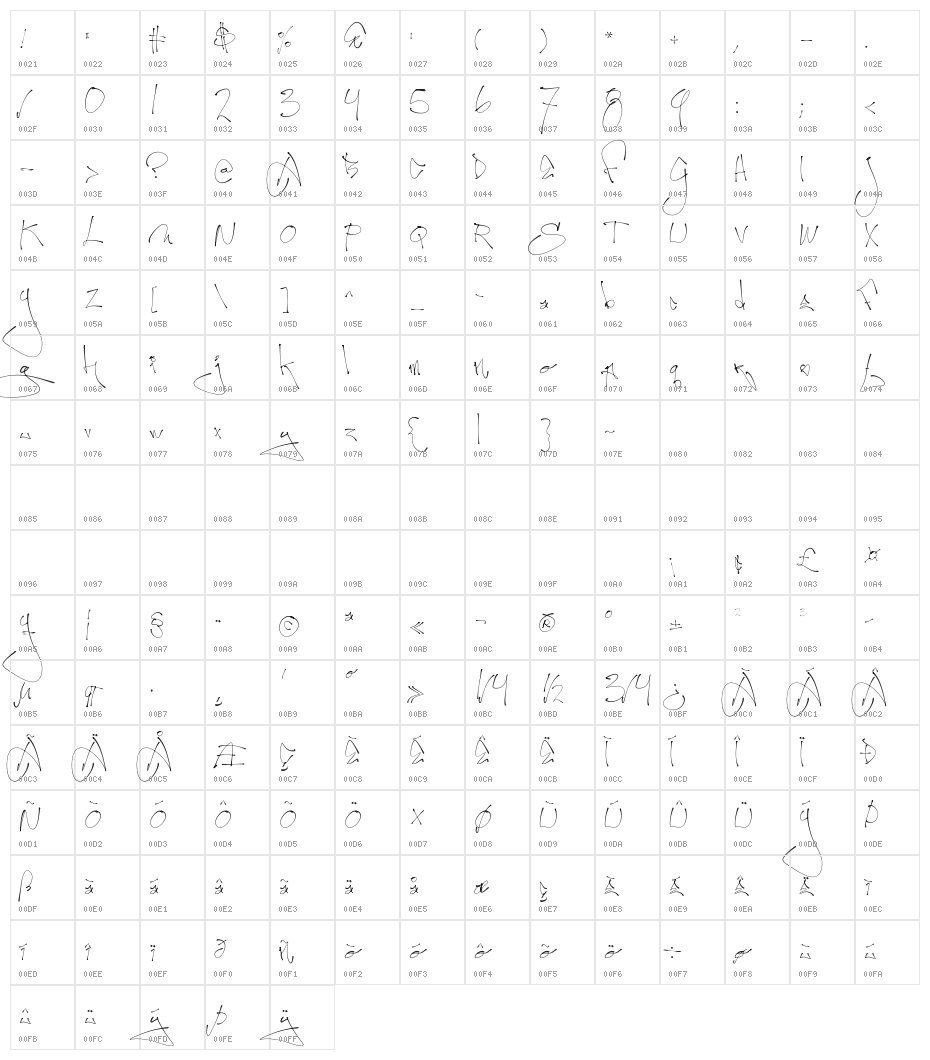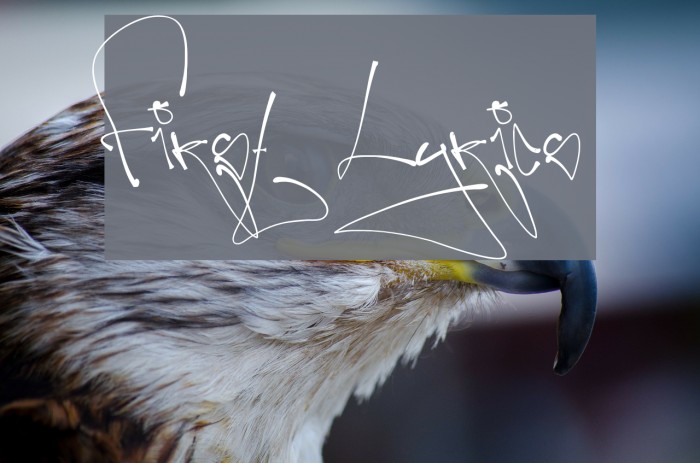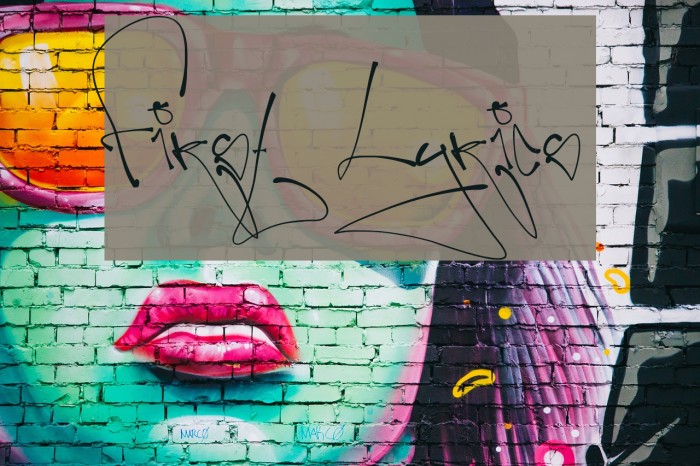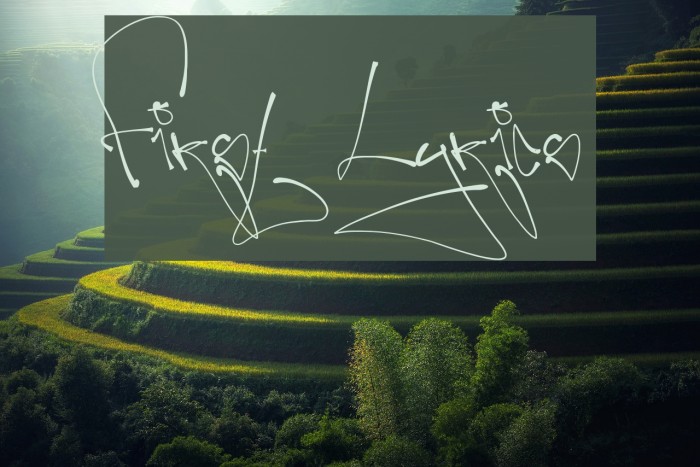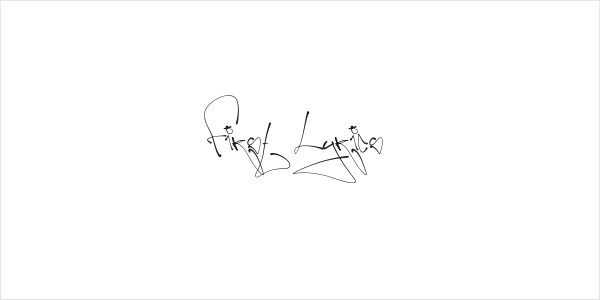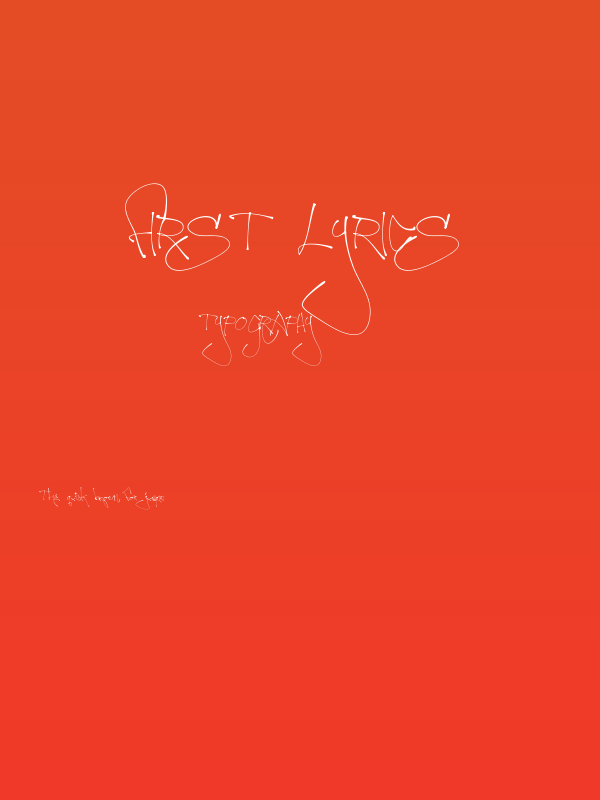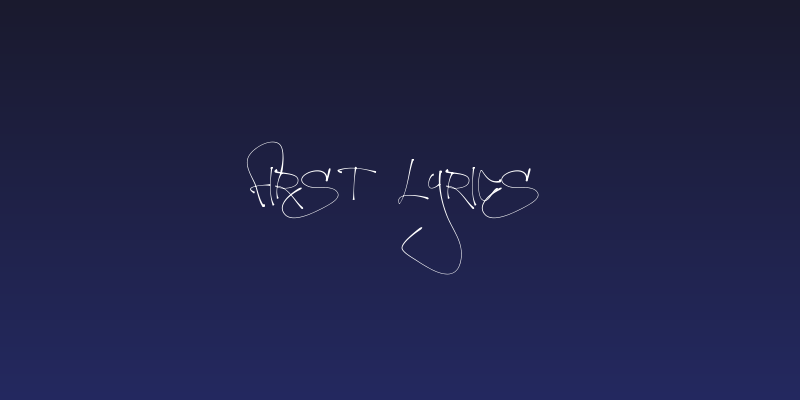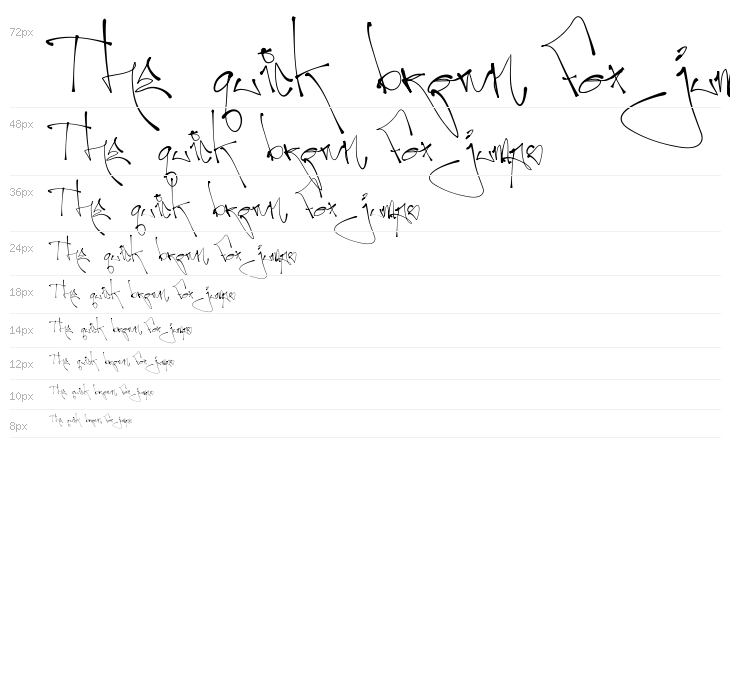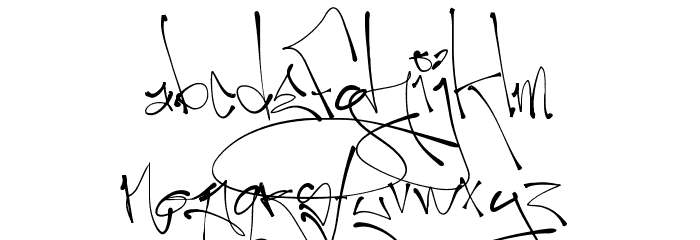
First Lyrics Font
First Lyrics Description
This font exhibits a highly expressive and artistic style, characterized by its freeform, handwritten appearance. The letters are dynamic, with varying stroke thicknesses that create a sense of movement and energy. The uppercase and lowercase letters blend seamlessly, maintaining a consistent flow throughout the alphabet. Numbers and special characters follow the same fluid design, enhancing the overall aesthetic. The font's unique style makes it stand out, offering a creative and unconventional look that is both modern and artistic.
| Overall Style | Artistic, Modern |
| Use Case | Logos, Posters, Artistic designs |
| Proposed Projects | Ideal for creative projects such as album covers, artistic posters, personal branding, and any design requiring a unique, handwritten touch. |